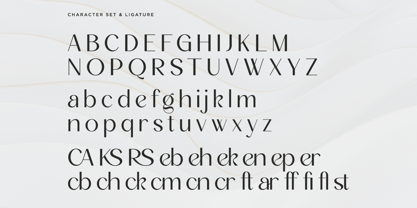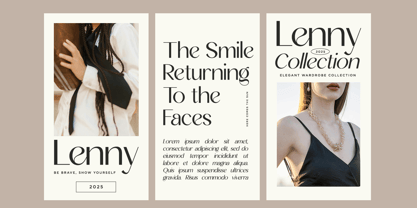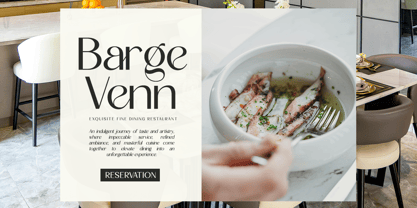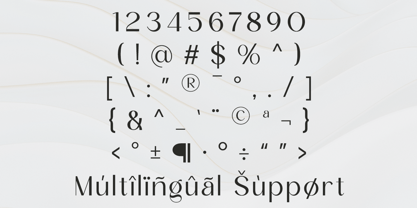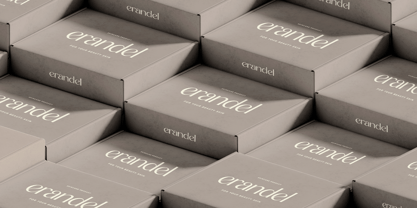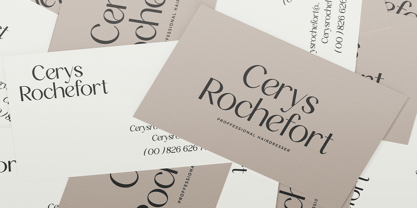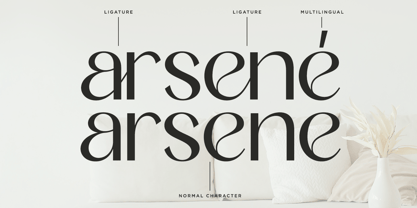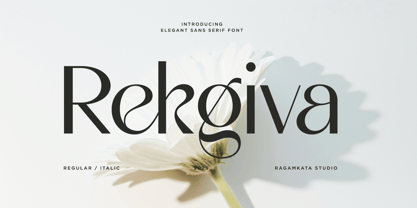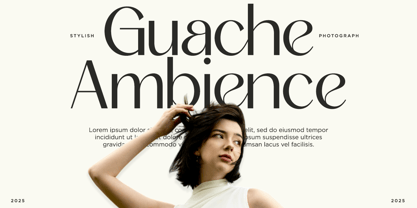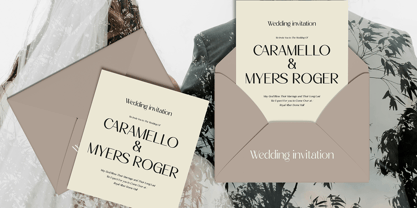
Rekgiva
by RagamKata
The Rekgiva Font Family was designed by Yogiswhara Dio Prakoso Riadi and published by RagamKata. Rekgiva contains 2 styles and family package options. More about this family
Rekgiva is an elegant serif font designed to bring sophistication and style to your creative projects. With its flowing curves and crisp serifs, it achieves a harmonious blend of timeless charm and contemporary flair. This font is perfect for a variety of applications, including branding, editorial designs, invitations, and packaging that demand a polished and refined aesthetic. Elevate your designs with Rekgiva's distinctive character and versatility, making it an essential choice for any designer looking to make a lasting impression. Thank you! Ragamkata
Designers: Yogiswhara Dio Prakoso Riadi
Foundry: RagamKata